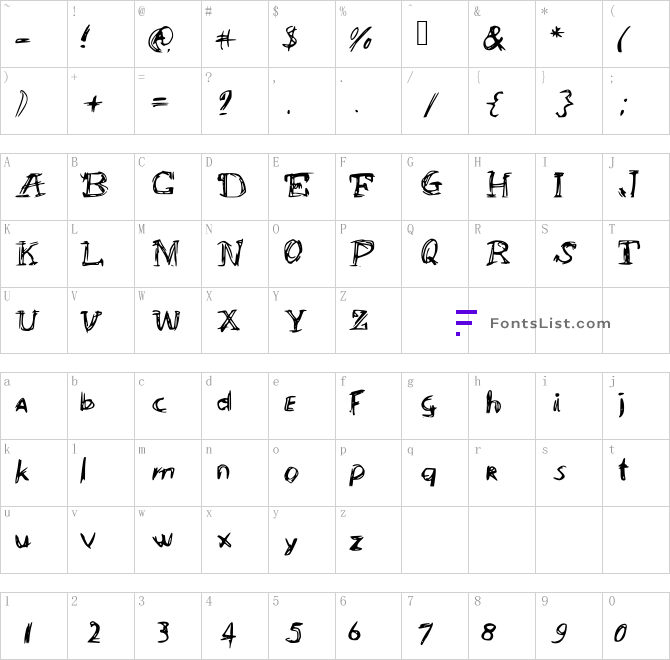
- Font Name:aBrACaDabRAHOcUsSPoKuz
aBrACaDabRAHOcUsSPoKuz.ttf is a very beautiful artistic font, aBrACaDabRAHOcUsSPoKuz.ttf is widely used in the design and printing of various books and pictures,aBrACaDabRAHOcUsSPoKuz.ttf has a strong visual impact,aBrACaDabRAHOcUsSPoKuz.ttf is a commonly used font in newspapers, magazines and books, and is used in posters, e-commerce Poster design, store design, logo design, font design and other fields.aBrACaDabRAHOcUsSPoKuz.